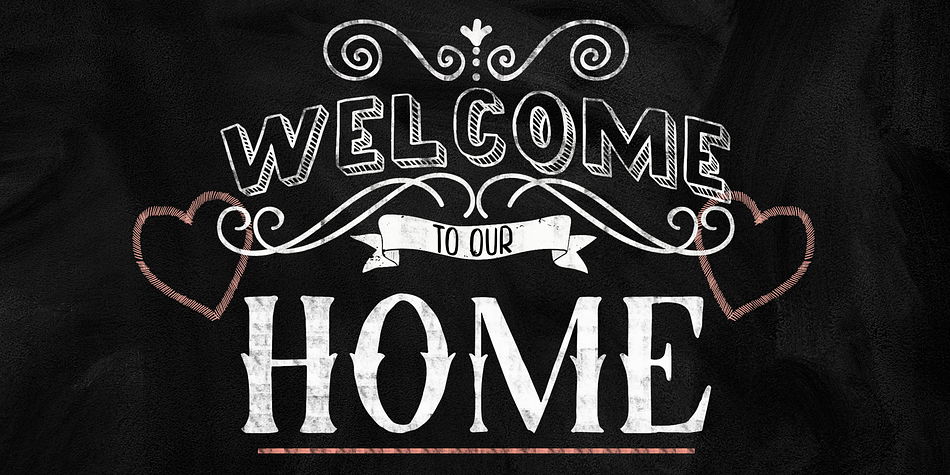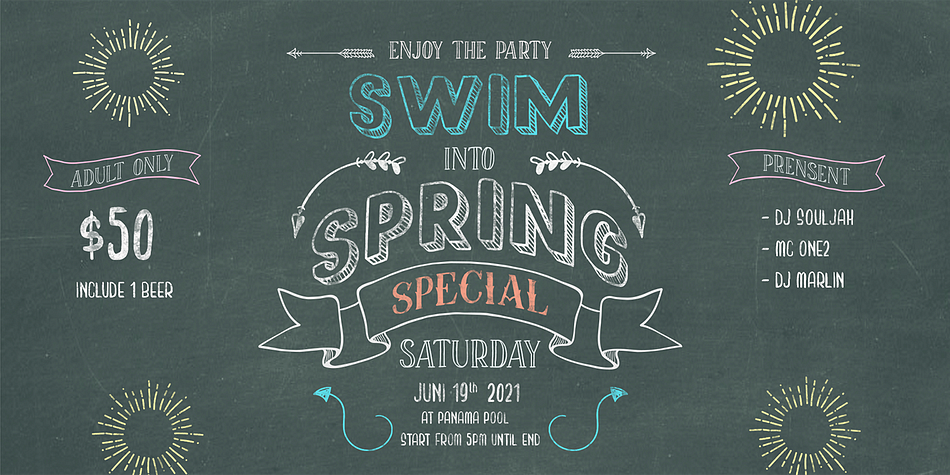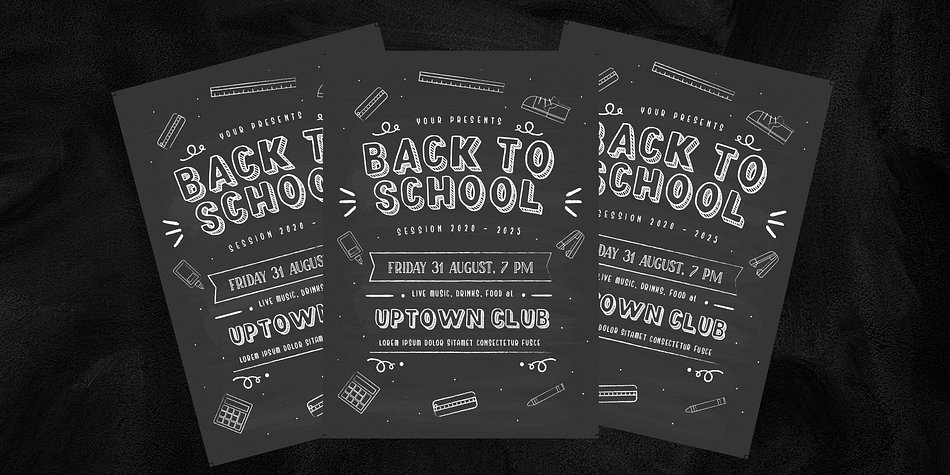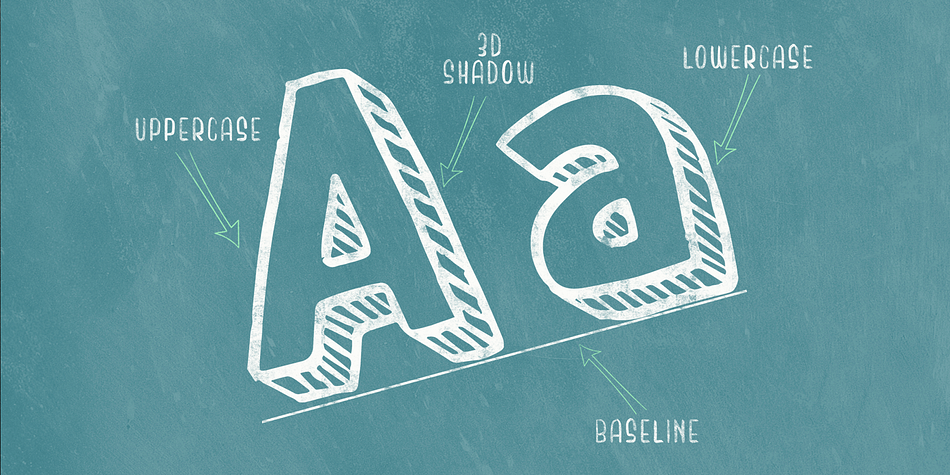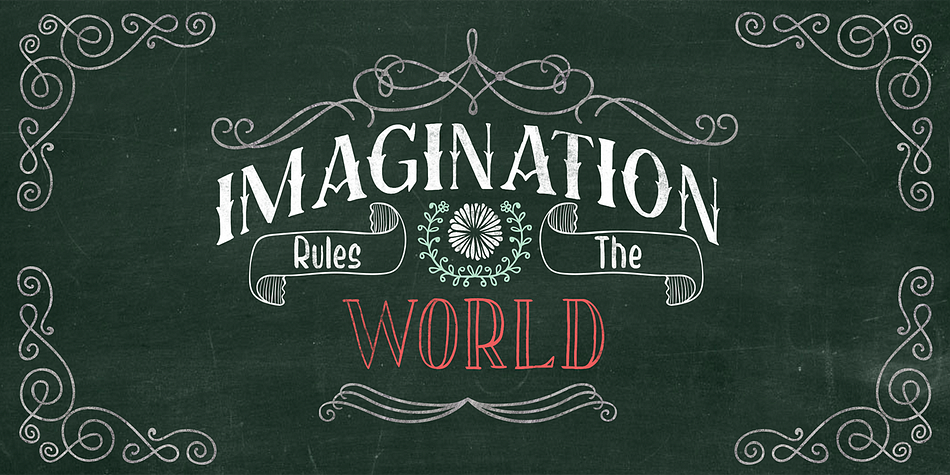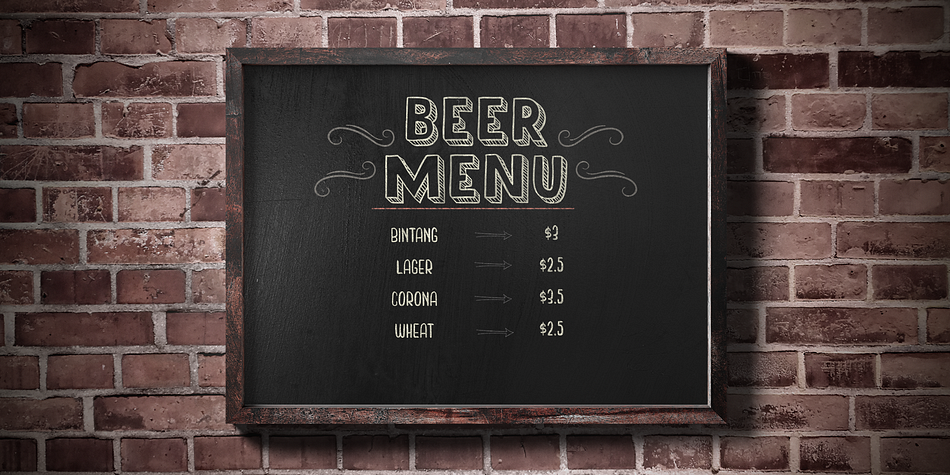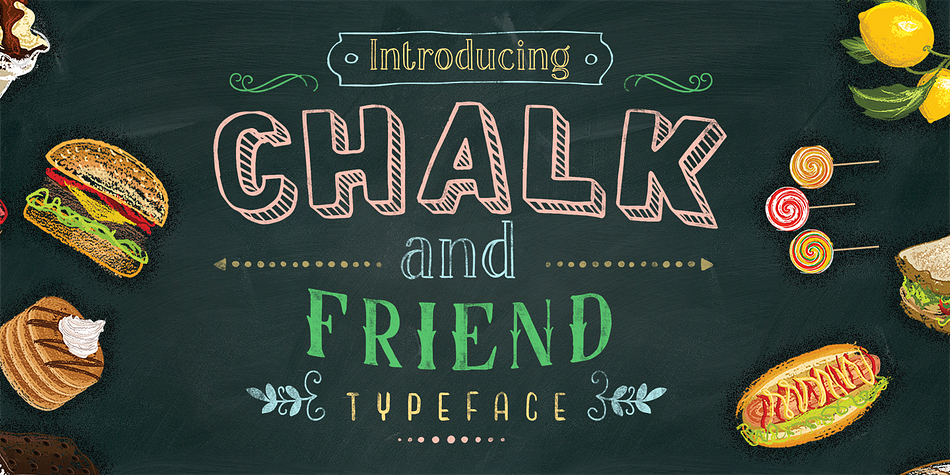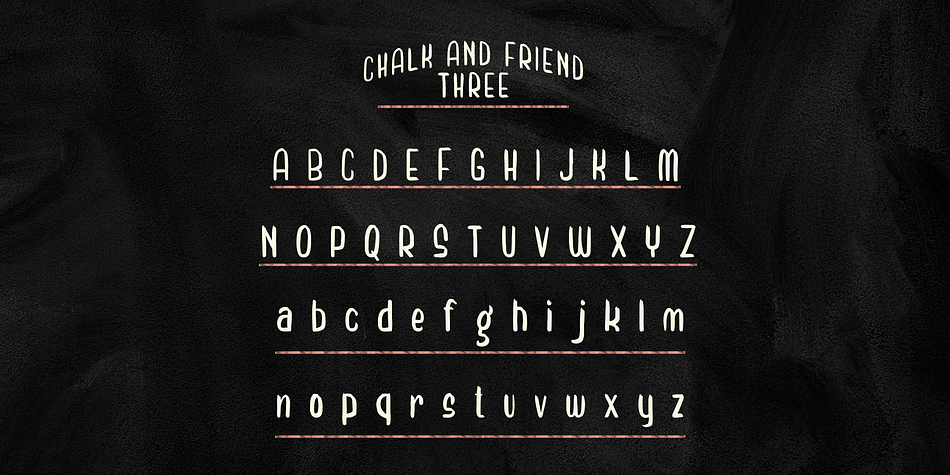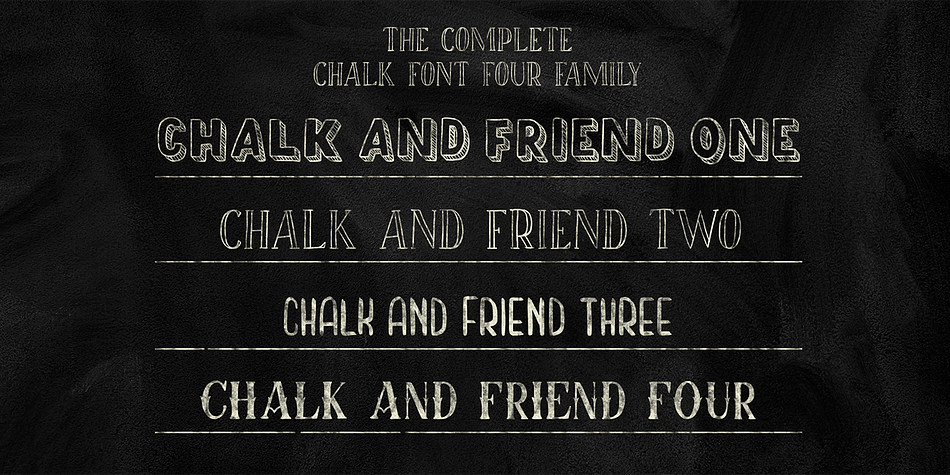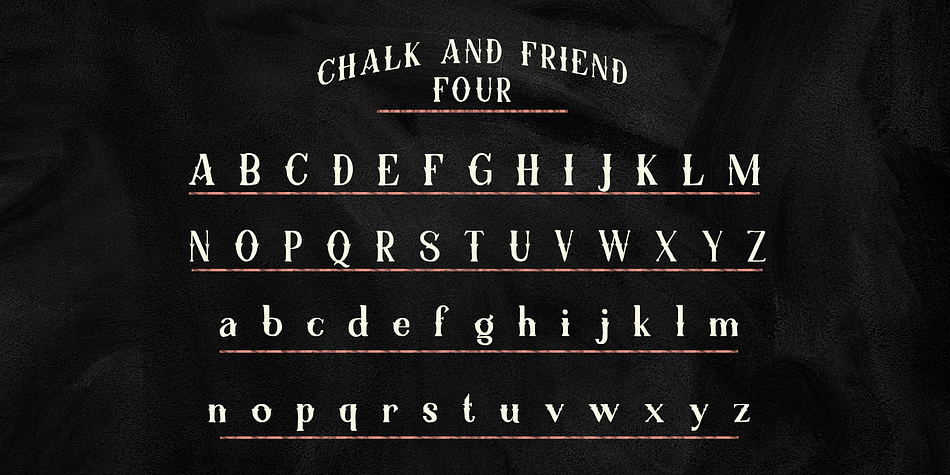
Designed by Alit Suarnegara, Chalk and Friend is a hand display and hand drawn font family. This typeface has four styles and was published by Alit Design.
Introducing Chalk and Friend Typeface
Chalk and Friend Typeface is a font inspired by writing on a blackboard. This font is very cool and can be mixed and matched with any ornament you like. Chalk and Friend has 4 unique and expressive font families, very easy to use and combine according to your wishes.
Chalk and Friend Typeface is suitable for blackboard menu design, book menus, sign boards and so on.